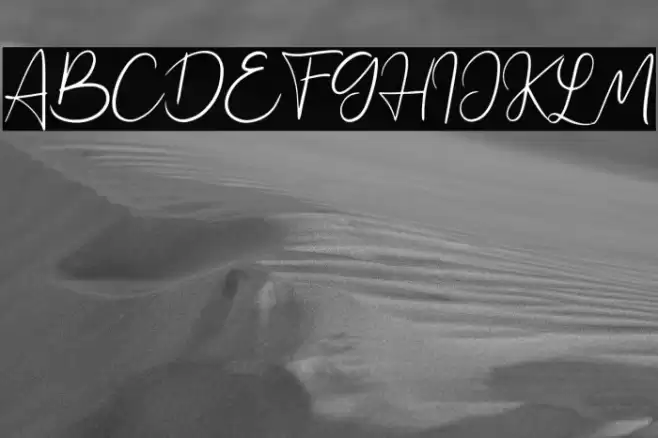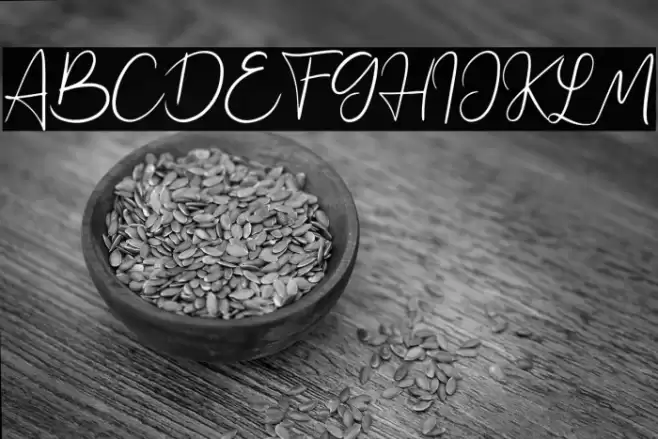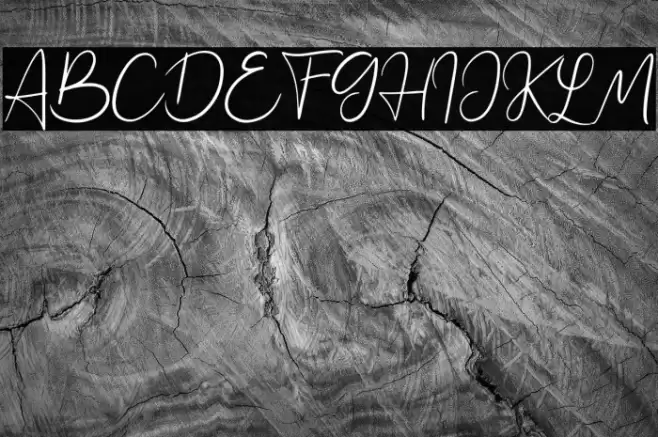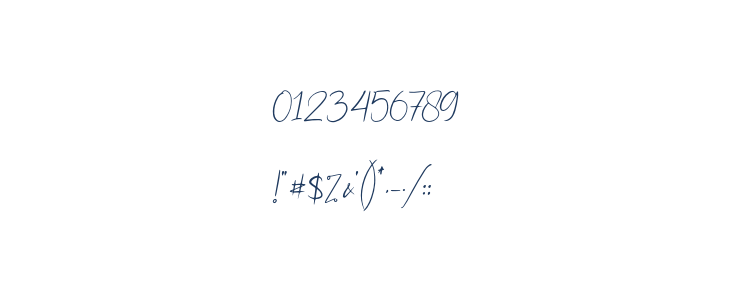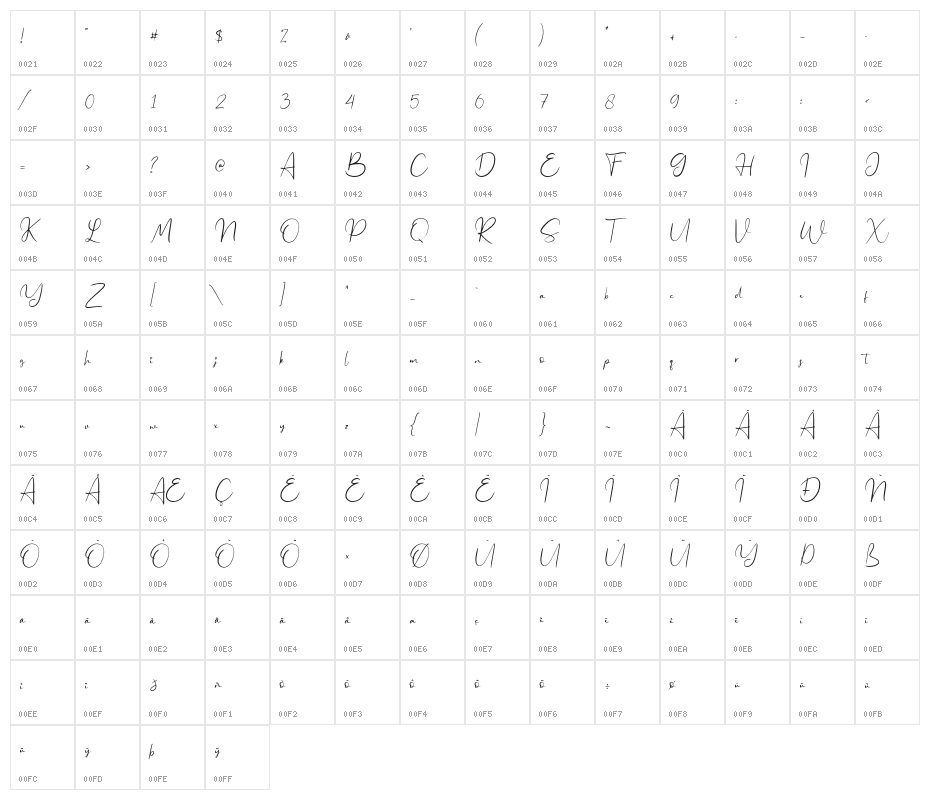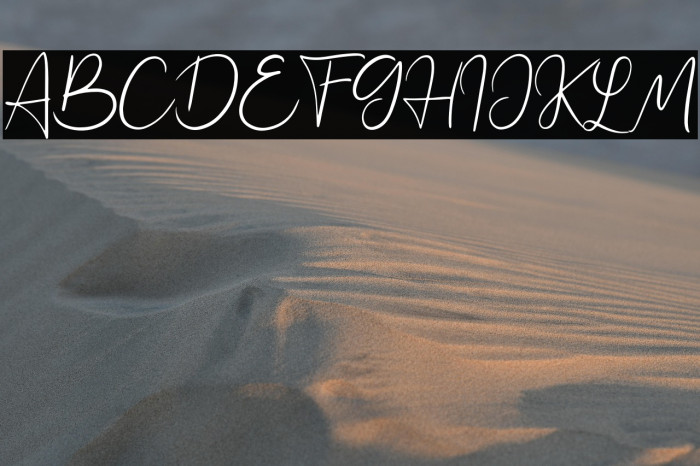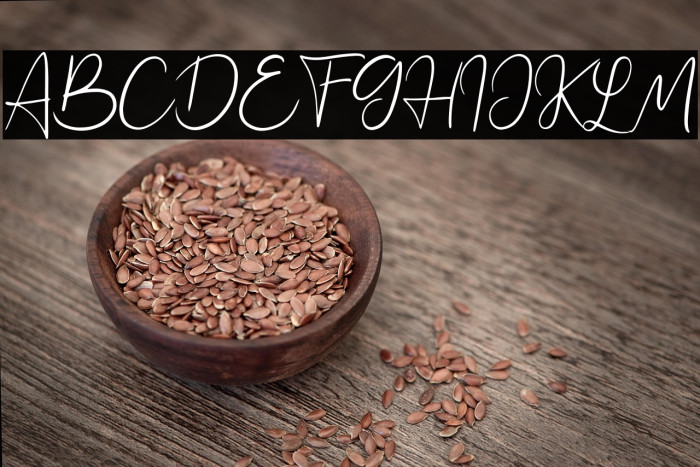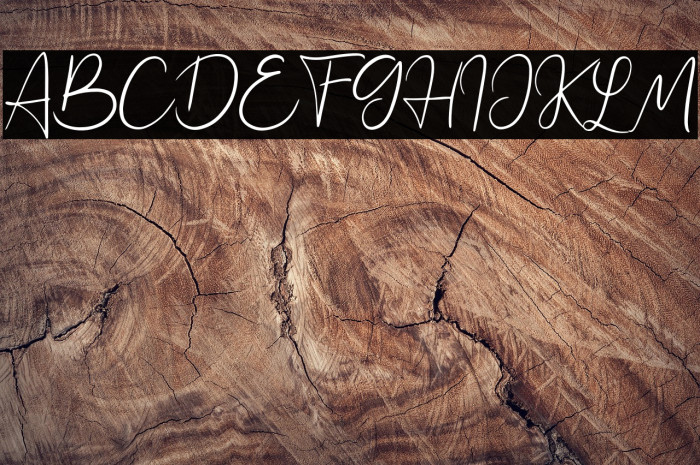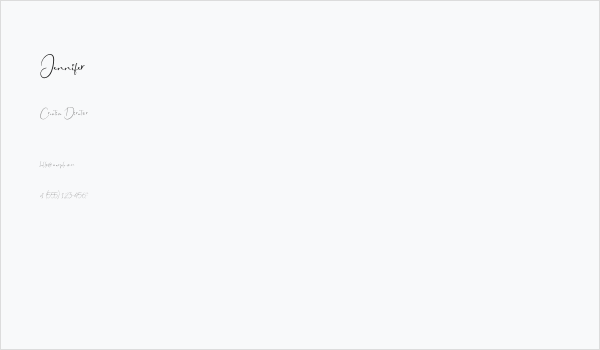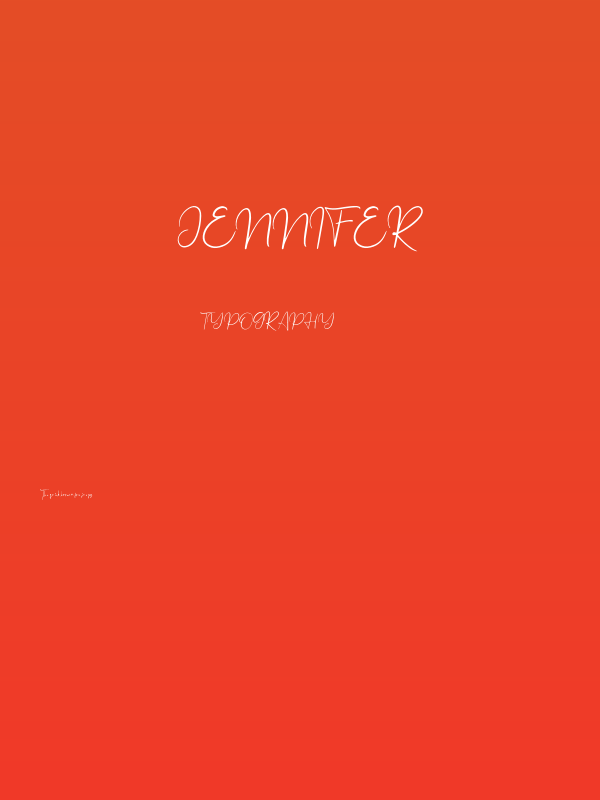
Jennifer Font
Jennifer Description
This font features an elegant and flowing script style, characterized by its smooth, cursive strokes and a sense of fluidity. The uppercase letters are tall and slightly slanted, giving a sense of sophistication and grace. The lowercase letters maintain a consistent flow, with some characters featuring loops and swashes that enhance its decorative appeal. The numerals are clear and maintain the cursive style, while the special characters complement the overall aesthetic with their delicate curves. This font is ideal for projects that require a touch of elegance and personal flair.
An elegant, flowing script font with smooth, cursive strokes from Uncategorized fonts.
- Font: Jennifer
- Proposed Projects: Ideal for wedding invitations, greeting cards, branding, and elegant logo designs.
- Overall Style: Elegant, Decorative
- Use Case: Logos, Invitations, Greeting Cards